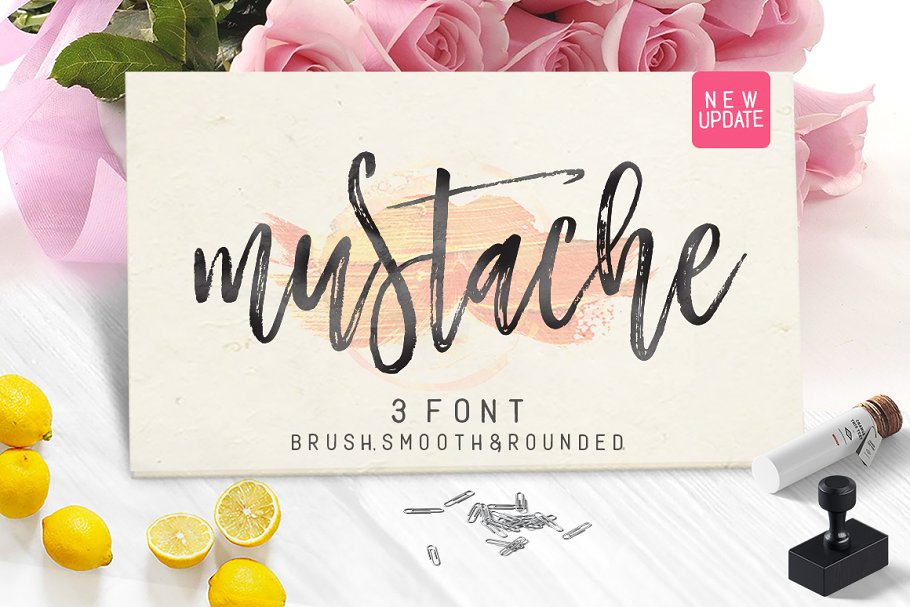
Mustache Font is now present with the latest updates, from Duo font has now into a three Fonts.
- MUSTACHE BRUSH SCRIPT,
- MUSTACHE SCRIPT (Smooth)
- and MUSTACHE ROUNDED + Extras Vector Clipart )
Mustache Script smooth features 340 glyphs and has given PUA unicode (specially coded fonts), with tons of alternate characters, designed by joelmaker. The pack can be accessed in full by any crafter or designer, without the requirement for extra design software, COMPATIBLE WITH SILHOUETTE & CRICUT DESIGN SPACE
Mustache Brush Script, a handmade font with a brush that is so soft, perfect for your next design, such as logos, printed quotes, handwritten quotes, invitations, cards, product packaging, merchandise, social media & greeting cards, headers and and anything else about your imagination.
Mustache Brush Script It contains a full set of lowercase & uppercase, a large range of punctuation, numerals, and multilingual support. The font also contains several ligatures, stylistic alternates, & Swash, for you who have opentype capable software (e.g. Photoshop/Illustrator, Corel Draw).
Mustache Brush Script allows you to create custom dynamic text. you can access by turning on; Stylistic Alternates, Swash, as well as ligatures in Photoshop, Adobe Illustrator, Adobe InDesign or through a panel of glyphs such as Adobe Illustrator, Photoshop CC, Let’s switch from the reguler character into character alternative to get the text with the layout of your dreams.